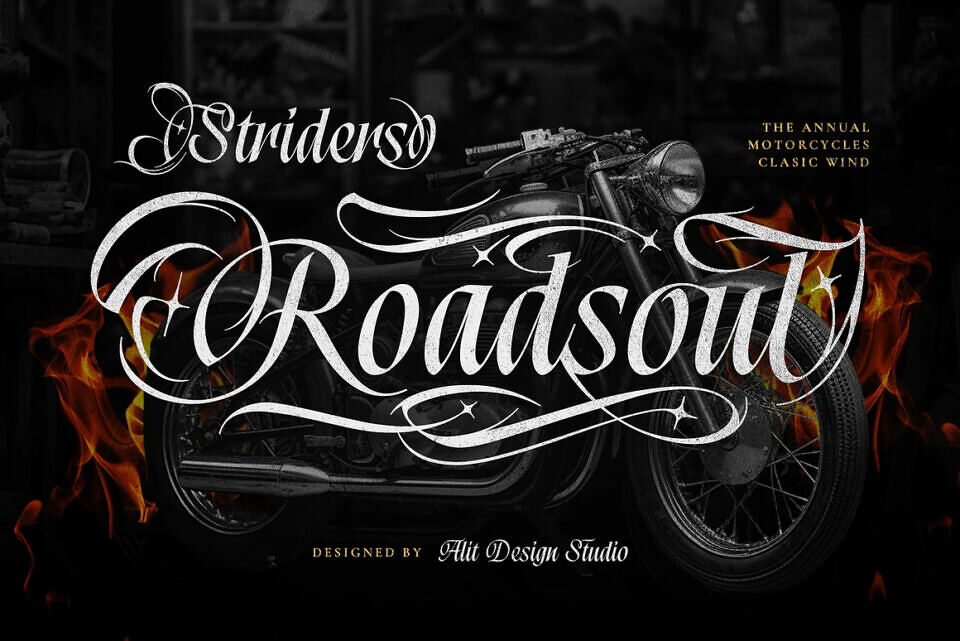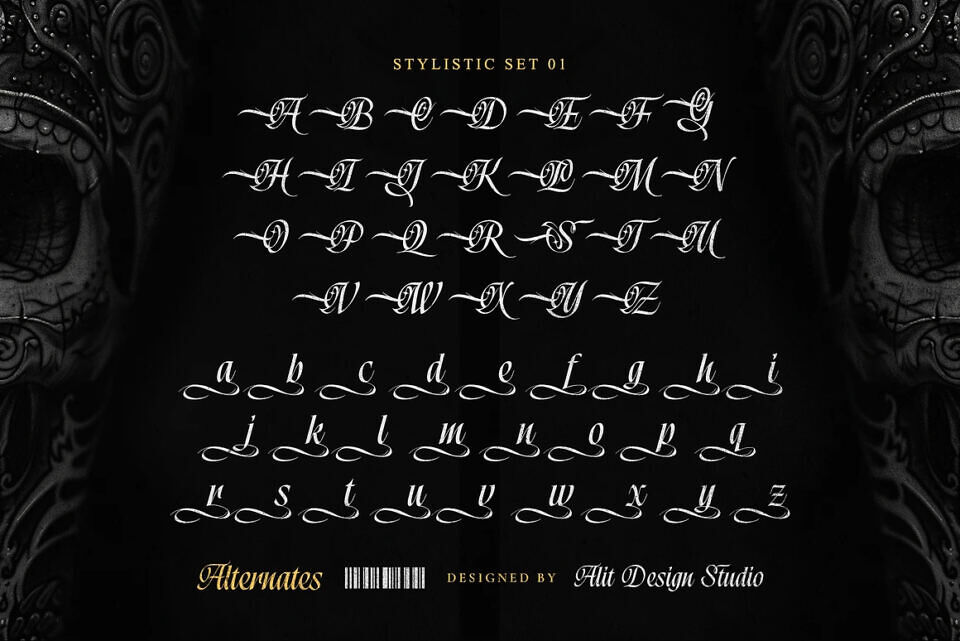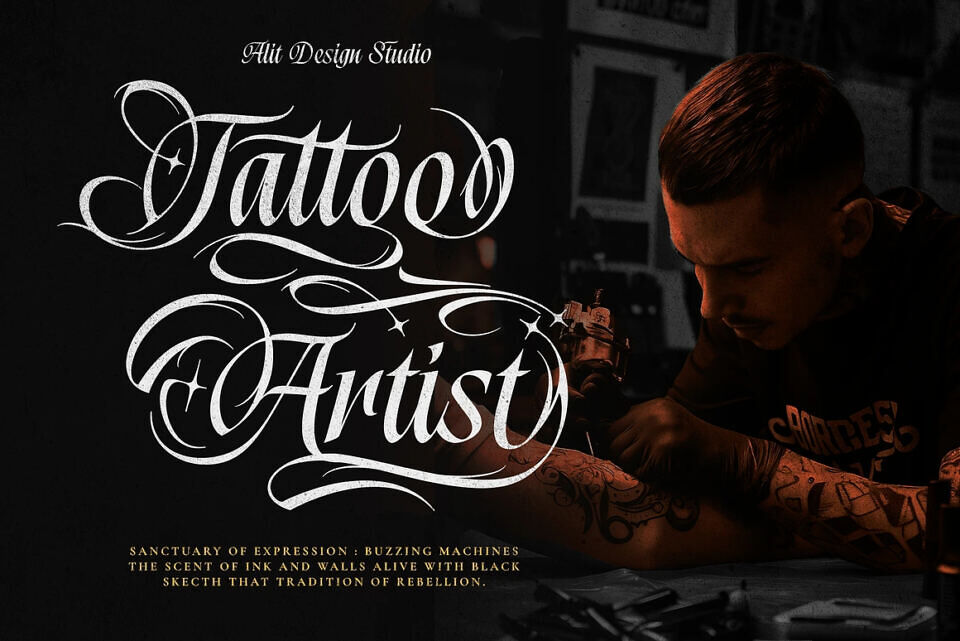
Bobara Master Font
Bobara Master is a striking gothic calligraphy typeface that fuses the bold intensity of blackletter with the refined elegance of custom script. Crafted by Alit Design Studio, this font embodies artistry, strength, and rebellious sophistication.
Featuring sharp, dramatic strokes, intricate swashes, and over 900 glyphs including stylistic sets and alternates, Bobara Master allows designers to create highly customizable, impactful typography. Ideal for tattoo studio logos, heavy metal and rock band album art, apparel, branding for whiskey and biker clubs, event posters, and fantasy or thriller book covers, it delivers a handcrafted, timeless, and modern aesthetic that commands attention.